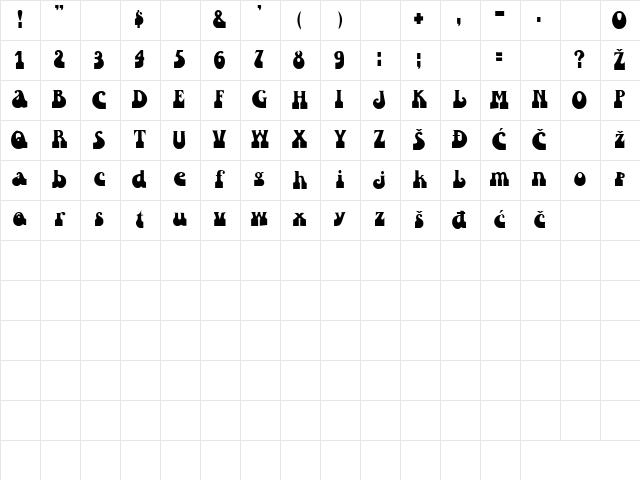
Inkwell Regular Free Font
Inkwell Regular
Design Context for Inkwell
Inkwell is a composed and adaptable typeface that performs quietly and consistently across a wide range of design contexts.